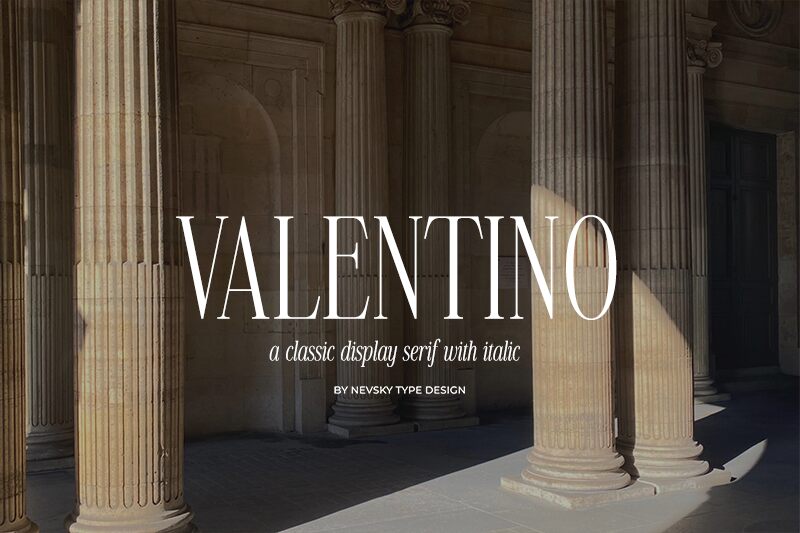
NT VALENTINO is a light, narrow serif font designed by Artem Nevsky. Its elegant style is perfect for classic designs such as wedding invitations, book covers, and formal documents. It can also be used to add a touch of sophistication to modern projects like logo design and website headers.
NT VALENTINO